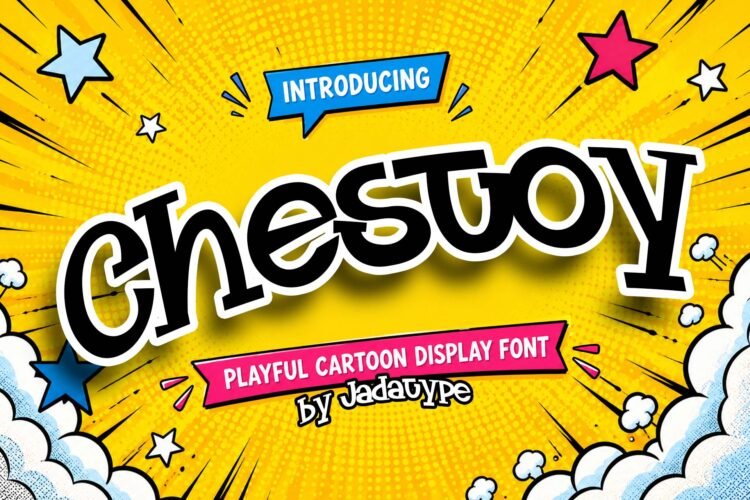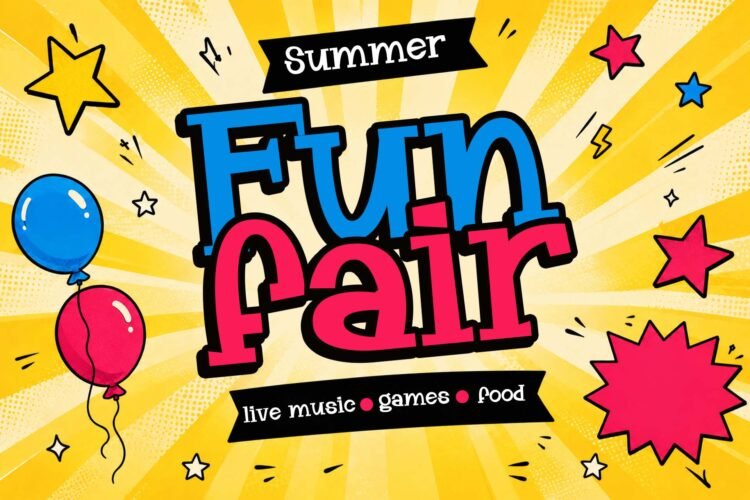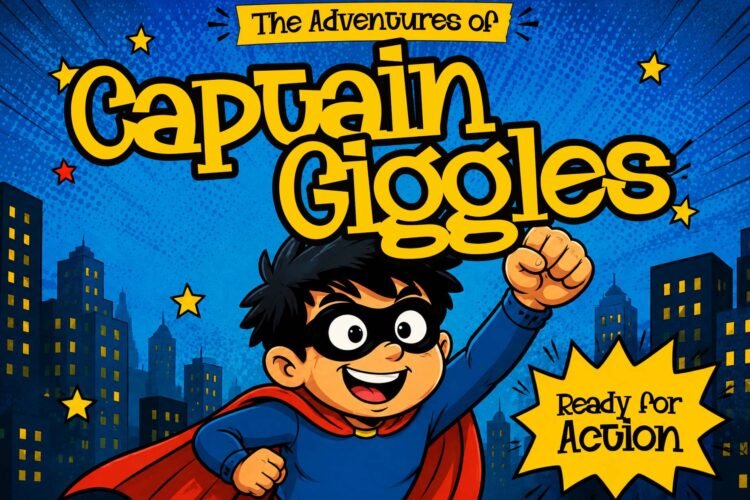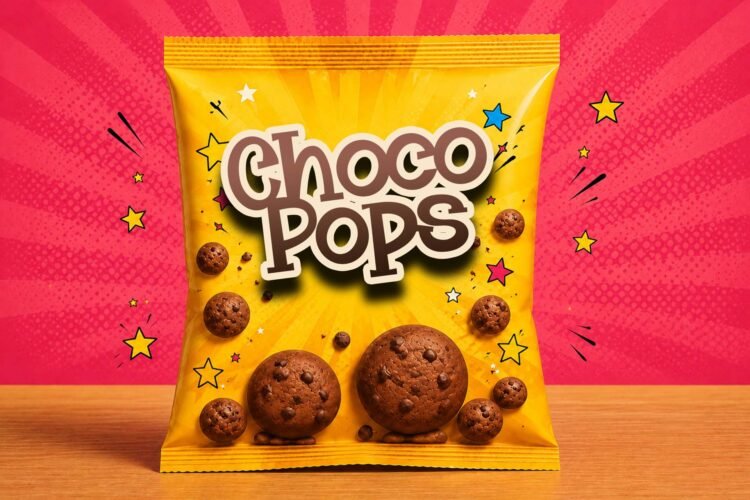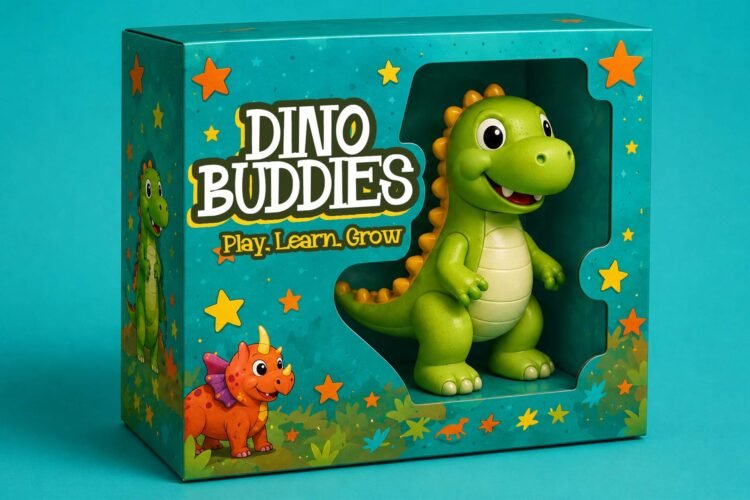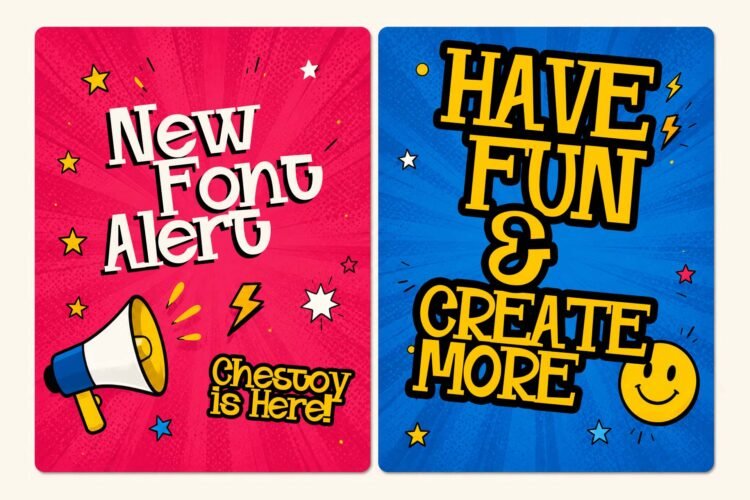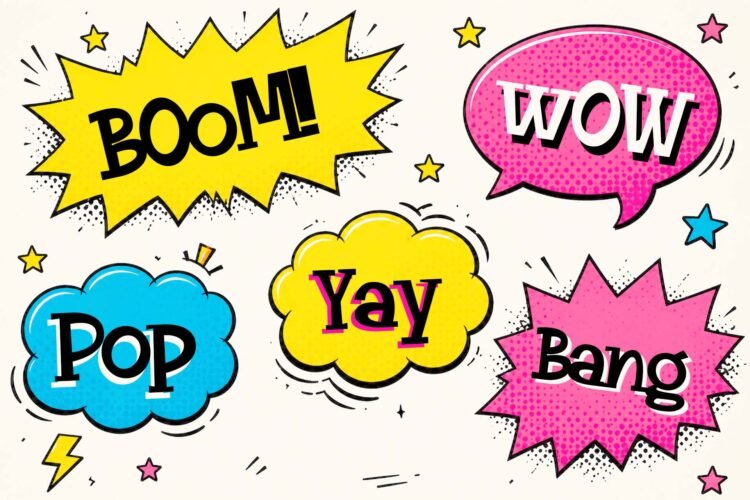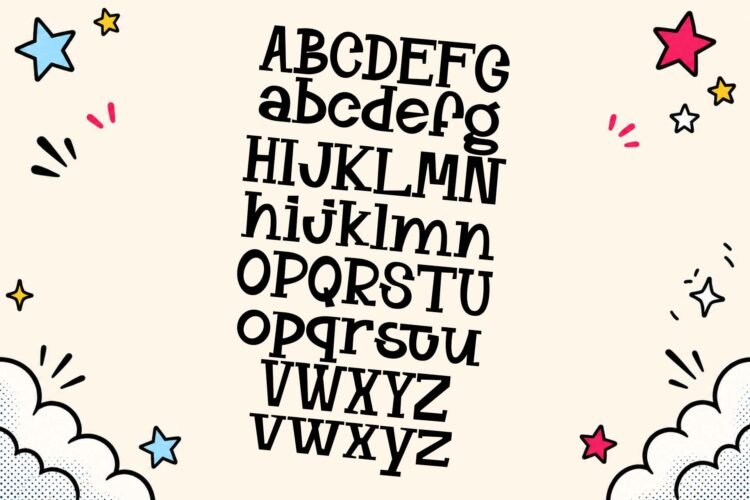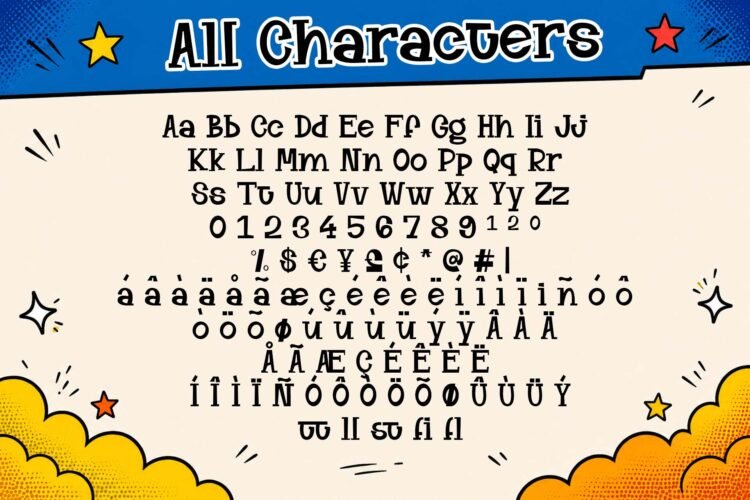
Chestoy is a playful slab serif display font that combines sturdy serif construction with a fun, cartoon-inspired personality. Its bold proportions and slightly quirky letterforms give it a friendly, expressive appearance, making it a strong choice for designs that need character and visual impact.
Perfect for branding, logo design, posters, book covers, social media graphics, packaging, children’s projects, invitations, editorial graphics, and other cheerful display applications. The font includes standard English letters, numbers, punctuation, and accented characters for multilingual support, with a Regular style. Designed by Jada Akbal and published by Jadatype
• Standard uppercase and lowercase letters
• Numbers and basic punctuation
• Playful slab serif and cartoon-inspired letterforms
• Several accented characters for multilingual suppor